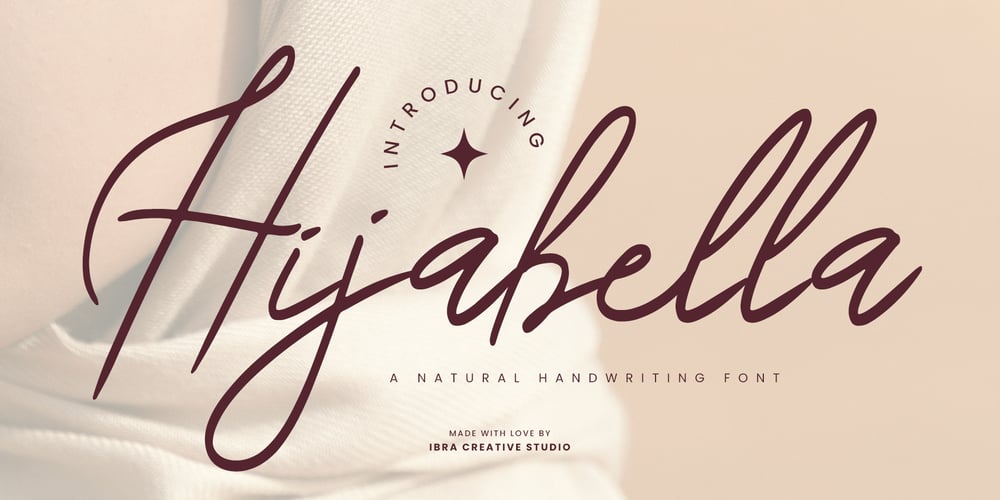
Hijabella Font Family was designed by Roisatul Azizah and published by IbraCreative. Hijabella contains 1 styles and family package options. Hijabella, a natural handwriting font, weaves an organic elegance into the realm of digital typography. With fluid strokes and a graceful rhythm, this font emulates the authenticity of hand-scripted messages. Each letter carries a unique charm, reflecting the imperfections and nuances found in real handwriting. The subtle variations in line thickness and the gentle slant of characters create an inviting and personal touch, reminiscent of pen meeting paper. Whether used for invitations, heartfelt notes, or creative projects, Hijabella’s natural flow captures the essence of a handwritten message, adding warmth and sincerity to the digital medium. Its versatile and effortless aesthetic makes it a perfect choice for those seeking a font that seamlessly blends the convenience of technology with the personal touch of genuine penmanship.